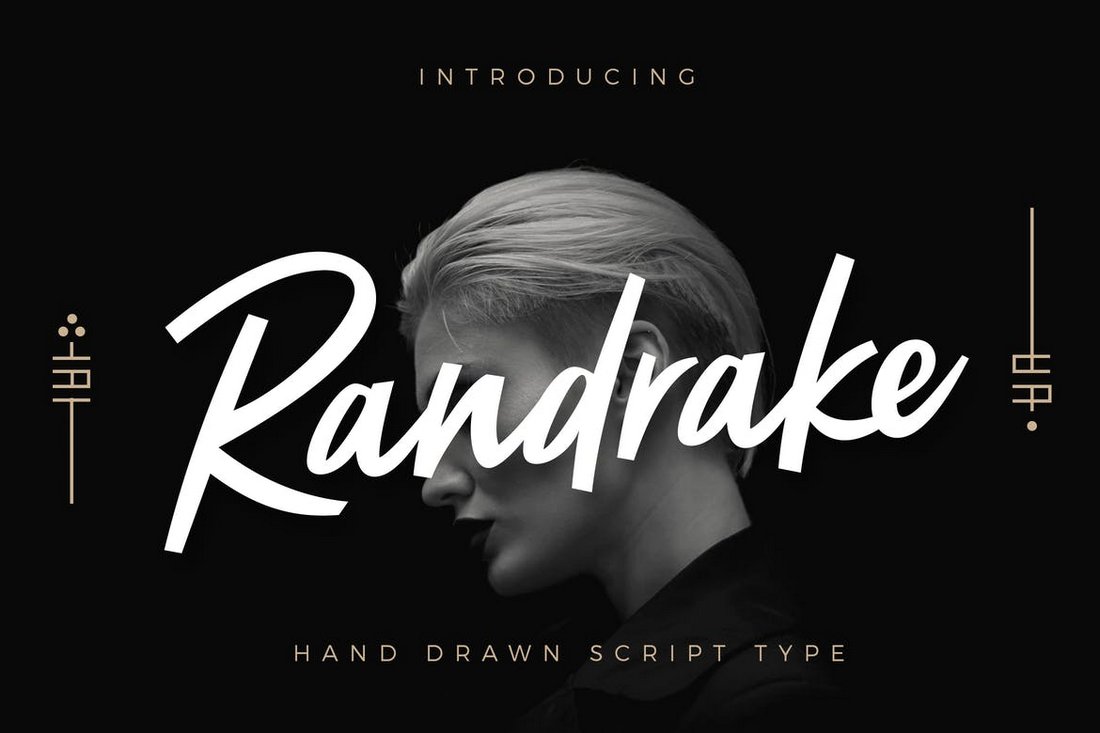
Fonts For Modern Logos
Fonts For Modern Logos. Liz withers created moka as a modern display type for a coffee logo. This font is ideal for crafting logos for luxury, fashion, and apparel brands.
50 Free Modern Fonts to Give Your Designs an Edgy Look
We have 4231 free modern fonts to offer for direct downloading · 1001 fonts is your favorite site for free fonts since 2001 Gilroy is a modern sans serif with a certain geometric touch. The unique design of the characters will make this font fit in well with both digital and print designs.
When Selecting A Font, Consider The Client’s Personality, The Functional Uses The Logo Will Be Used For, And The Design’s Timelessness.
The most frequently used serif font is garamond, one of the best serif fonts for printed designs. The new proxima nova refines the font further with better proportions, which gives it a very sleek look. You require something that is easy on the eyes, that can have a unique personality, and be relevant in various scenarios.
As A Logo Font, The Bold And Compact Nature Of The Passion 1 Font Contrasts Nicely.
Randrake is a modern logo font that comes with a stylish script design. A vintage inspired logo design with a custom script font by dsky. We have 4231 free modern fonts to offer for direct downloading · 1001 fonts is your favorite site for free fonts since 2001
In any case, if a serif or a sans serif font is a more suitable font for logo designs, is a matter of what you’d like to convey with your logo rather than going only by readability at small sizes. Tt norms works equally well both in large text arrays or in headlines and is “the one”, the indispensable universal font for logo design. There is such a variety of fonts that can add a sleek and distinct style to your creative work, and knowing what is out there is a step in the right direction.
Liz Withers Created Moka As A Modern Display Type For A Coffee Logo.
10 best free professional fonts for clean & modern logo design; 20 fresh free fonts for creative modern logos. In fact, make whether to use a sans serif or a serif font your very first decision when selecting a typeface for your brand.
Pair One Of These Free Logo Fonts With An Icon, And You Are Ready To Start Your Business.
Gilroy is a modern sans serif with a certain geometric touch. Both groups offer modern fonts for logos, with the difference that serifs look more official and traditional, with few additional lines attached to the letters. Looking for modern logo fonts?